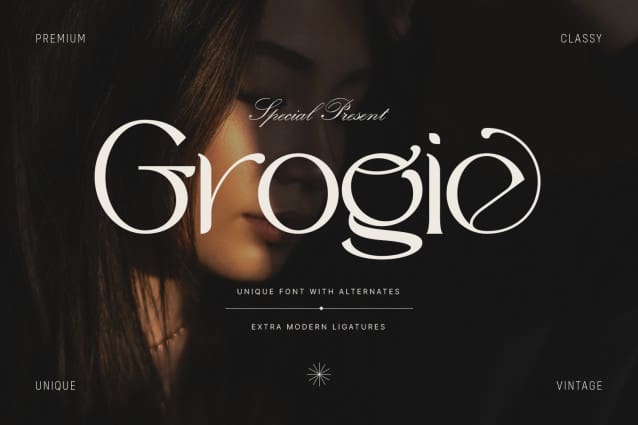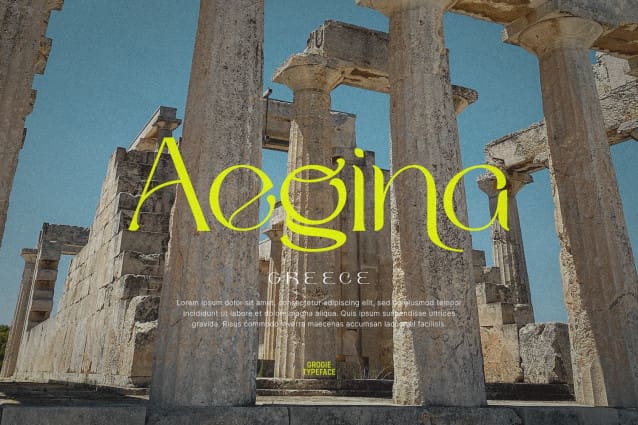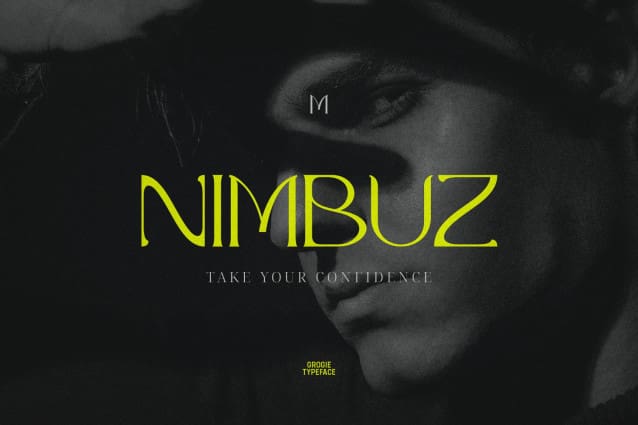
Grogie – Modern Serif Font
Grogie – Modern Serif Font – the modern serif font is perfect for logos, branding and marketing materials. Therefore you should choose Grogie for your next design project.
Grogie – Modern Serif Font is perfect for an elegant & luxury logo, classy designs, women’s magazine, fashion brand, cosmetic brand, fashion promotion, modern advertising design, invitation card, art quote, home decoration, book/cover titles, special events, and much more.